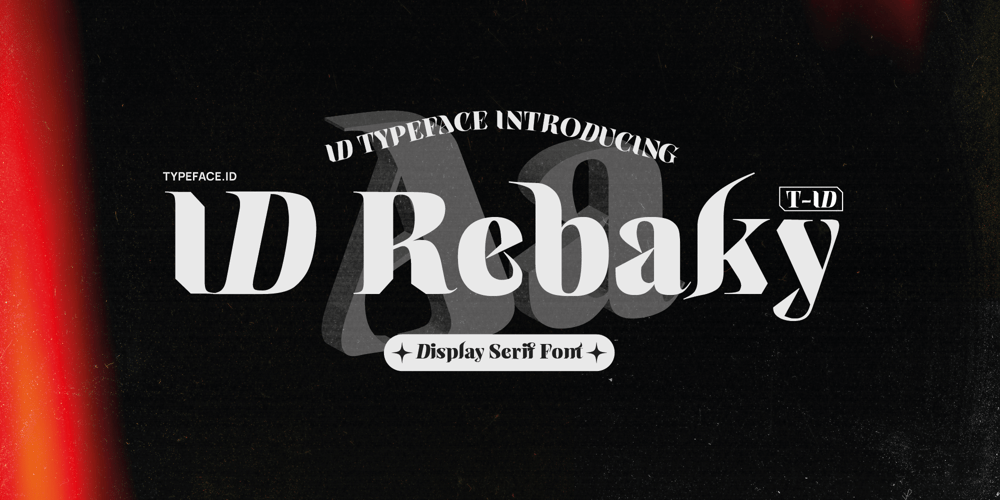
ID Rebaky Font Family was designed by Khairil Anwar and published by ID Typeface. ID Rebaky contains 1 styles and family package options. ID Rebaky is a stylish script-based display font perfect for bold headlines and film posters. Combining the elegance of script with the impact of a display typeface, it adds sophistication and flair to titles while remaining highly readable. Ideal for creating an eye-catching, elegant look in branding, promotions, and modern design projects.